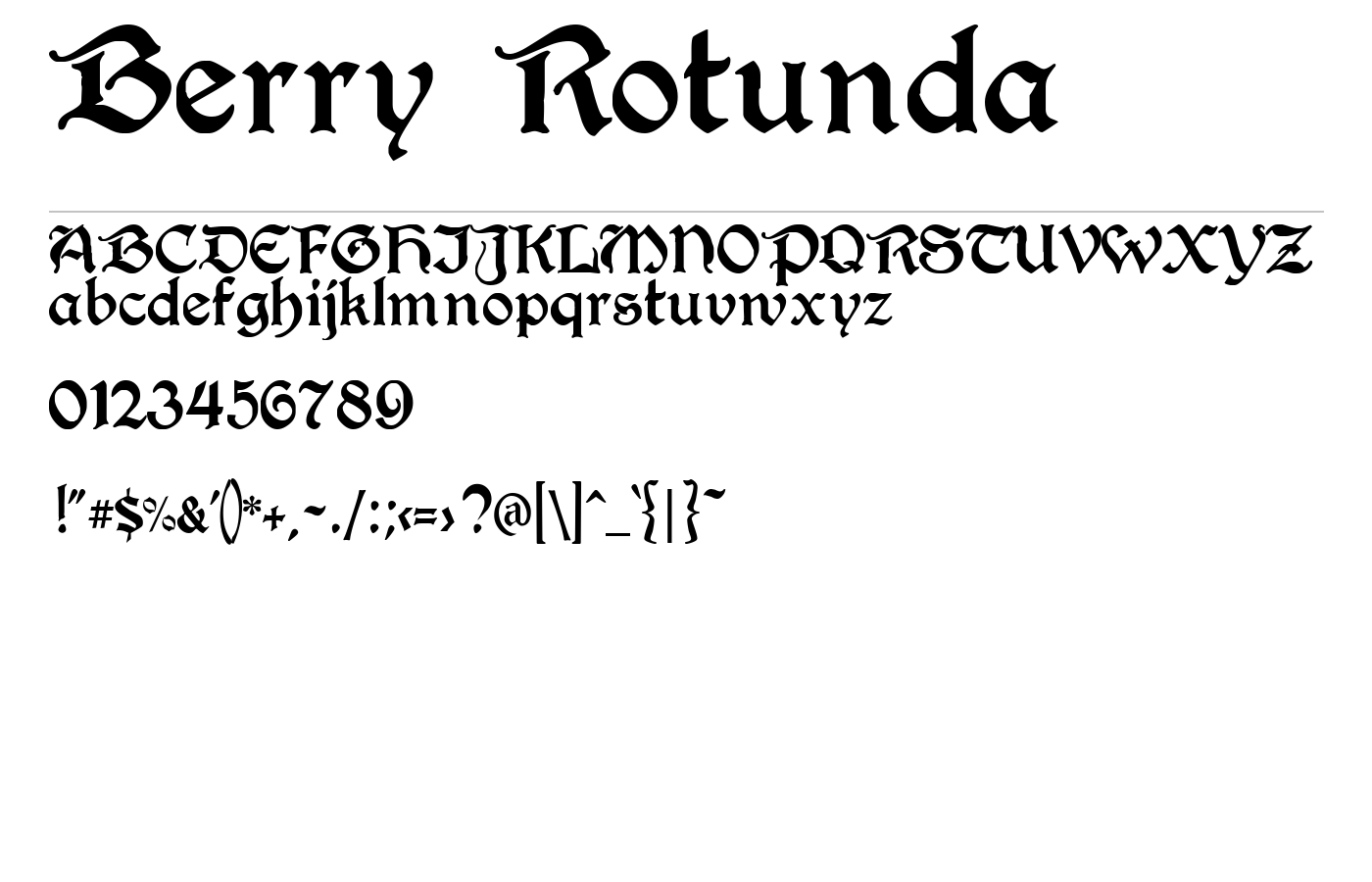
Berry Rotunda is a distinctive blackletter serif font with sharp, angular strokes and a bold weight that evokes a historical and medieval feel. Its ornate letterforms and classic contrast make it perfect for projects seeking a vintage, gothic, or traditional atmosphere, such as logos, posters, or editorial designs that want to convey elegance with a dramatic flair. This font works best in larger sizes where its intricate details can be fully appreciated.
Berry Rotunda Font
| Designer | Inspired by Nicolas Jenson & William Morris |